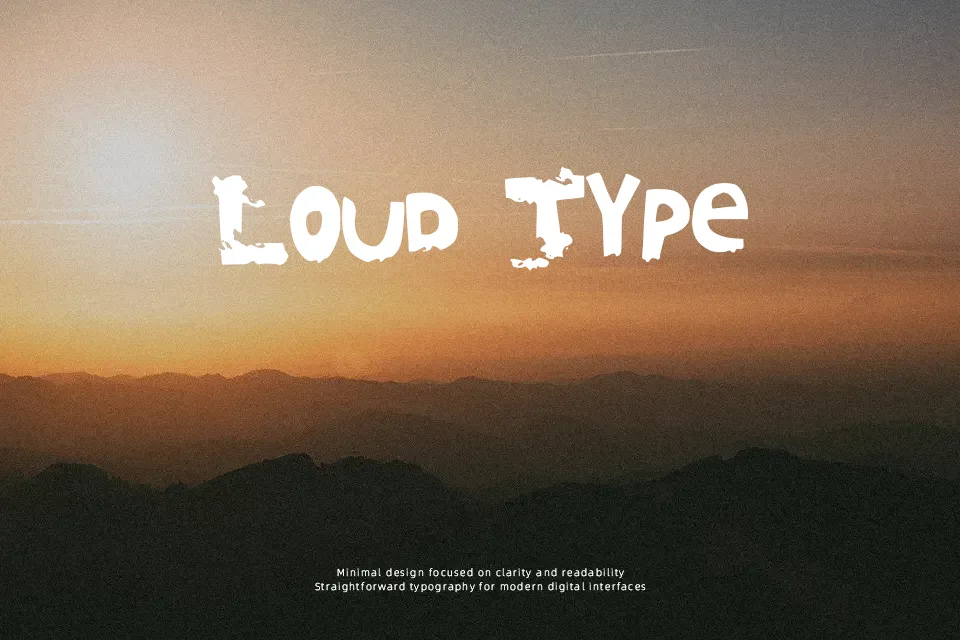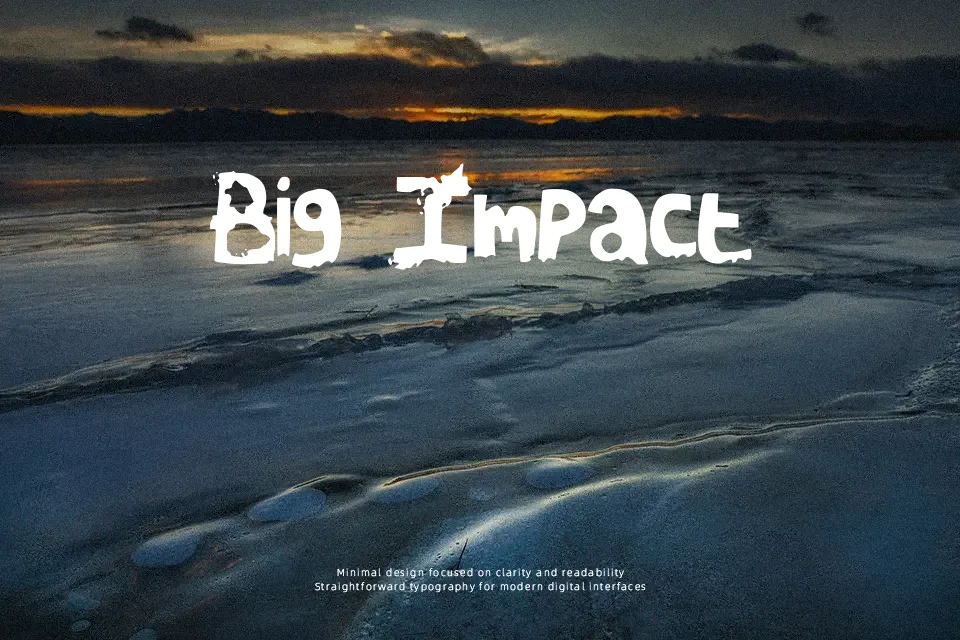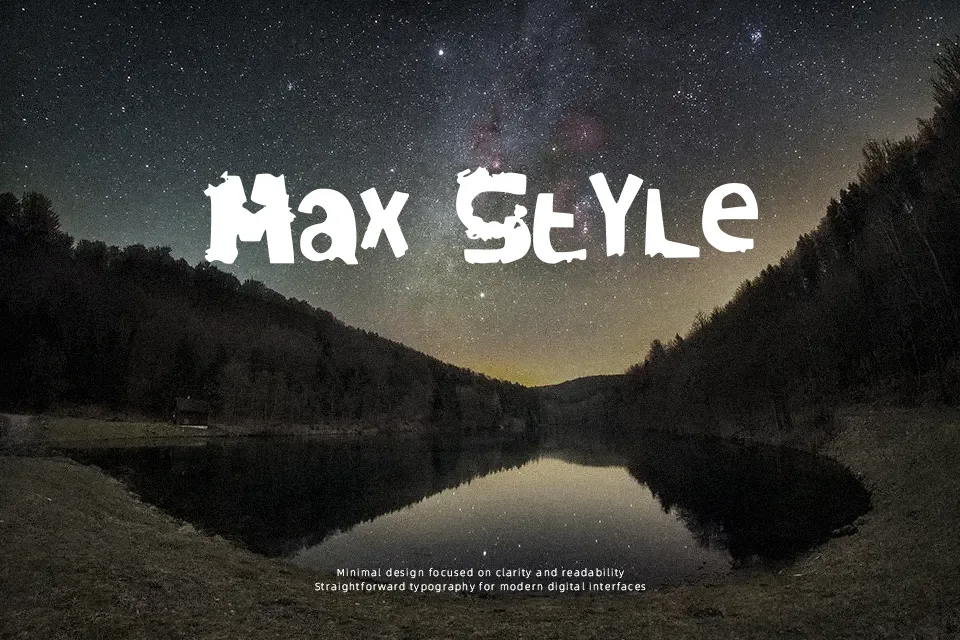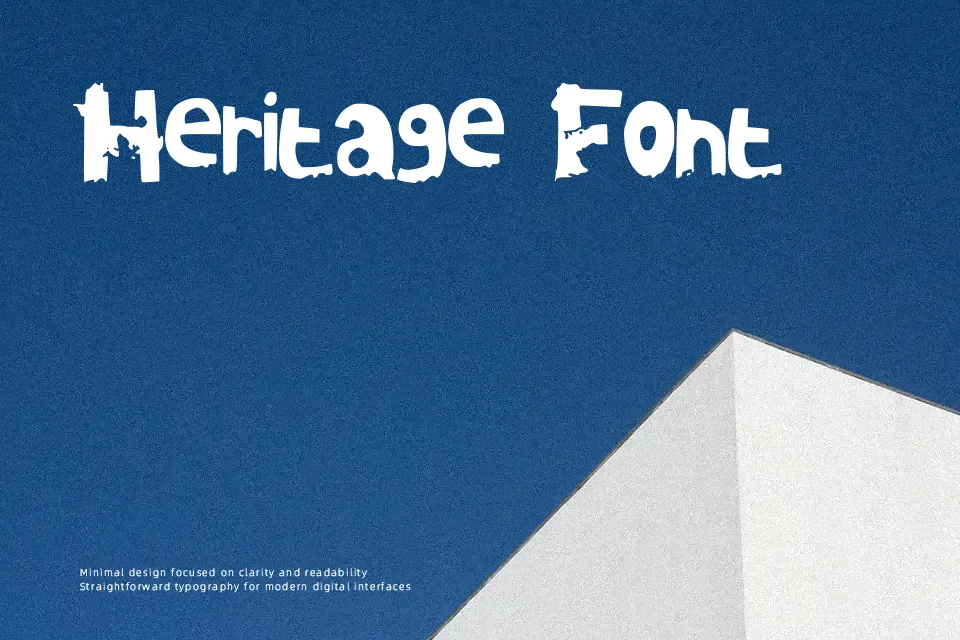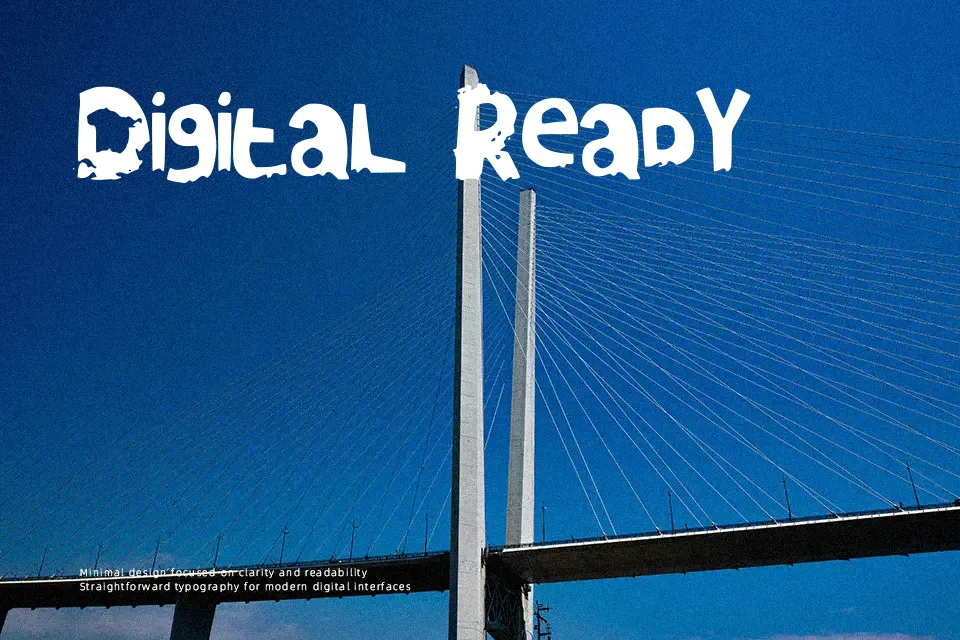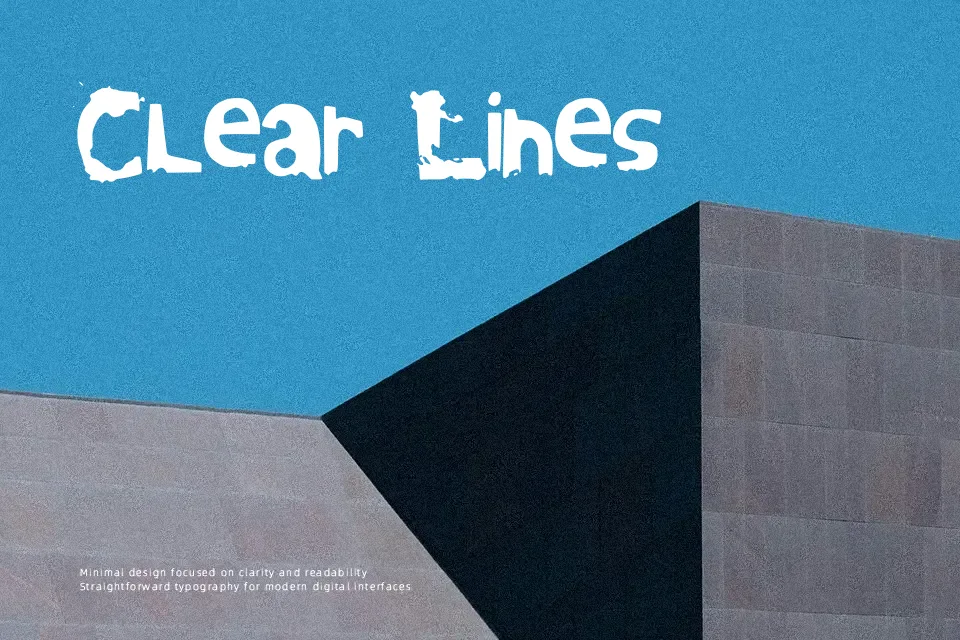
A Vida Nova Font
The letterforms in A Vida Nova carry significant visual weight — thick strokes with a heavily eroded surface that reads less like a typeface and more like text scraped off a crumbling wall. Categorized under Fancy > Destroy, it carries a tone that is dark, almost confrontational, and pairs naturally with underground music artwork, Halloween event graphics, or horror-themed branding where roughness is the point. The distressed texture is its strength and its constraint: while headlines hit hard, any attempt to use this at small sizes or in body copy will collapse into illegibility. It performs best when given space — large, short, and bold — and falls short wherever clarity or professional polish is expected.
Best For:- Horror film or event poster headers
– Halloween campaign visuals
– Underground music or band merchandise
– Dark-themed editorial title treatments
Not Ideal For:- Body text or long-form copy
– Corporate or professional branding
– Small-size usage (labels, footnotes, UI)
– Any context requiring high legibility at varied sizes
Perfect for branding, film, and halloween, with a bold and decorative style.